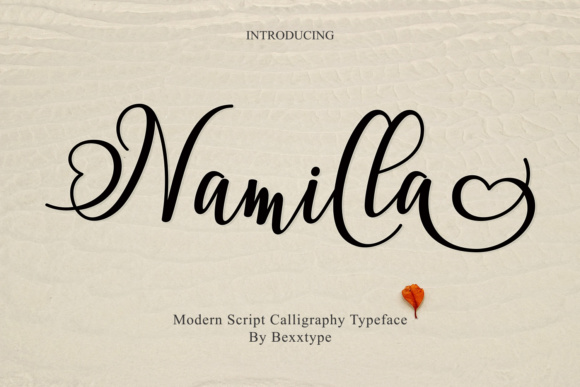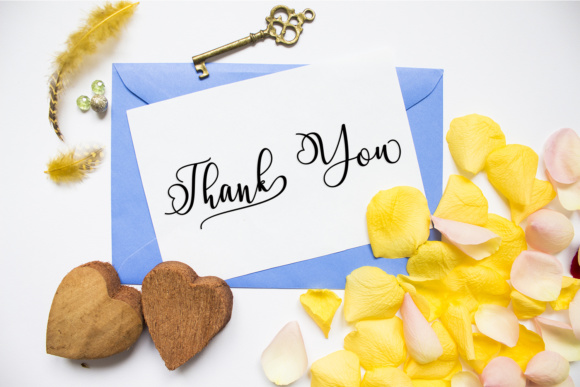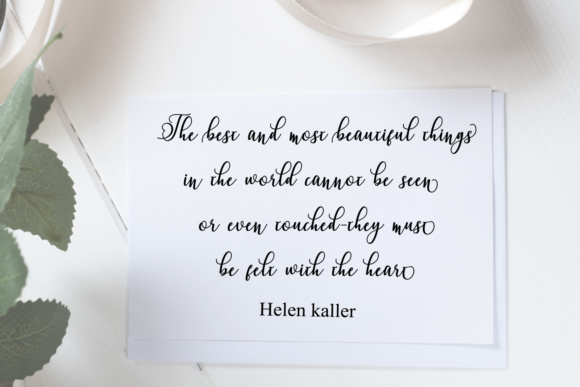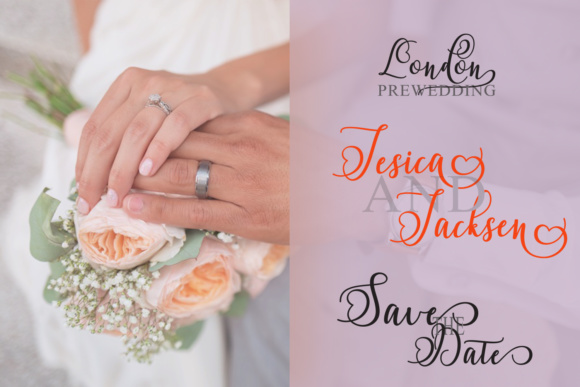
Namilla Script Duo Font
About Namilla Script Duo Font
Namilla is a fresh & modern script with a handmade calligraphy style, decorative characters and a dancing baseline! Namilla comes in two styles and is beautiful on greeting cards, branding materials, business cards, quotes, posters, and more!